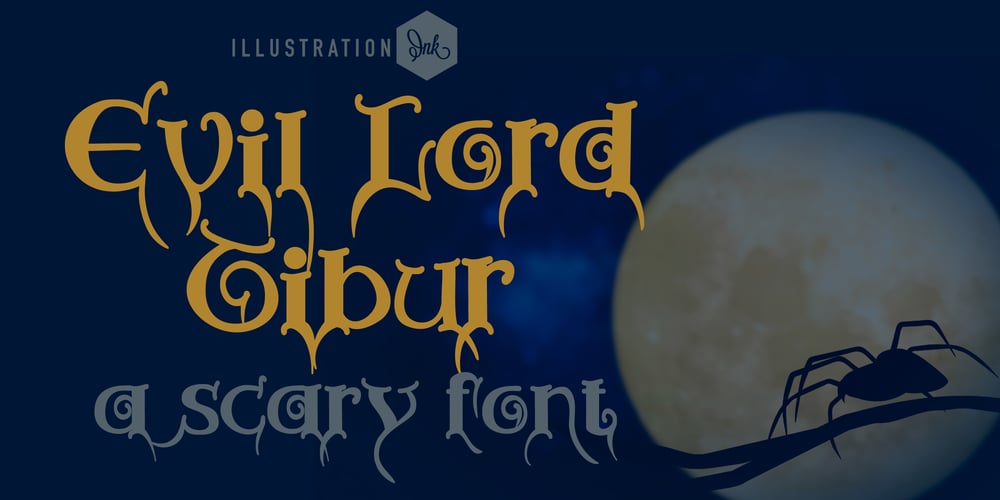
ZP Evil Lord Tibor Font Family was designed by Illustration Ink and published by Illustration Ink. ZP Evil Lord Tibor contains 3 styles and family package options. This hand-crafted, old-school font has long, drippy, dagger-like elements for a creepy-like feel. A hand-crafted font is a font that is designed to look like it was written by hand. It is often used for invitations, greeting cards, and other items. Handwritten fonts can be either formal or informal, and they can be used for a variety of purposes.Some of the characteristics of handwritten fonts include: The letters are not perfectly uniform in size or shape. There may be slight variations in the spacing between letters and words. The font may have a “wiggly” or “squiggly” appearance. The font may be difficult to read at small sizes. Handwritten fonts can be a great way to add a casual touch to your designs. They can also be used to create a sense of nostalgia or whimsy. However, it is important to choose a handwritten font that is appropriate for the project you are working on. A formal handwritten font may not be appropriate for a casual invitation, while an informal handwritten font may not be appropriate for a corporate document.